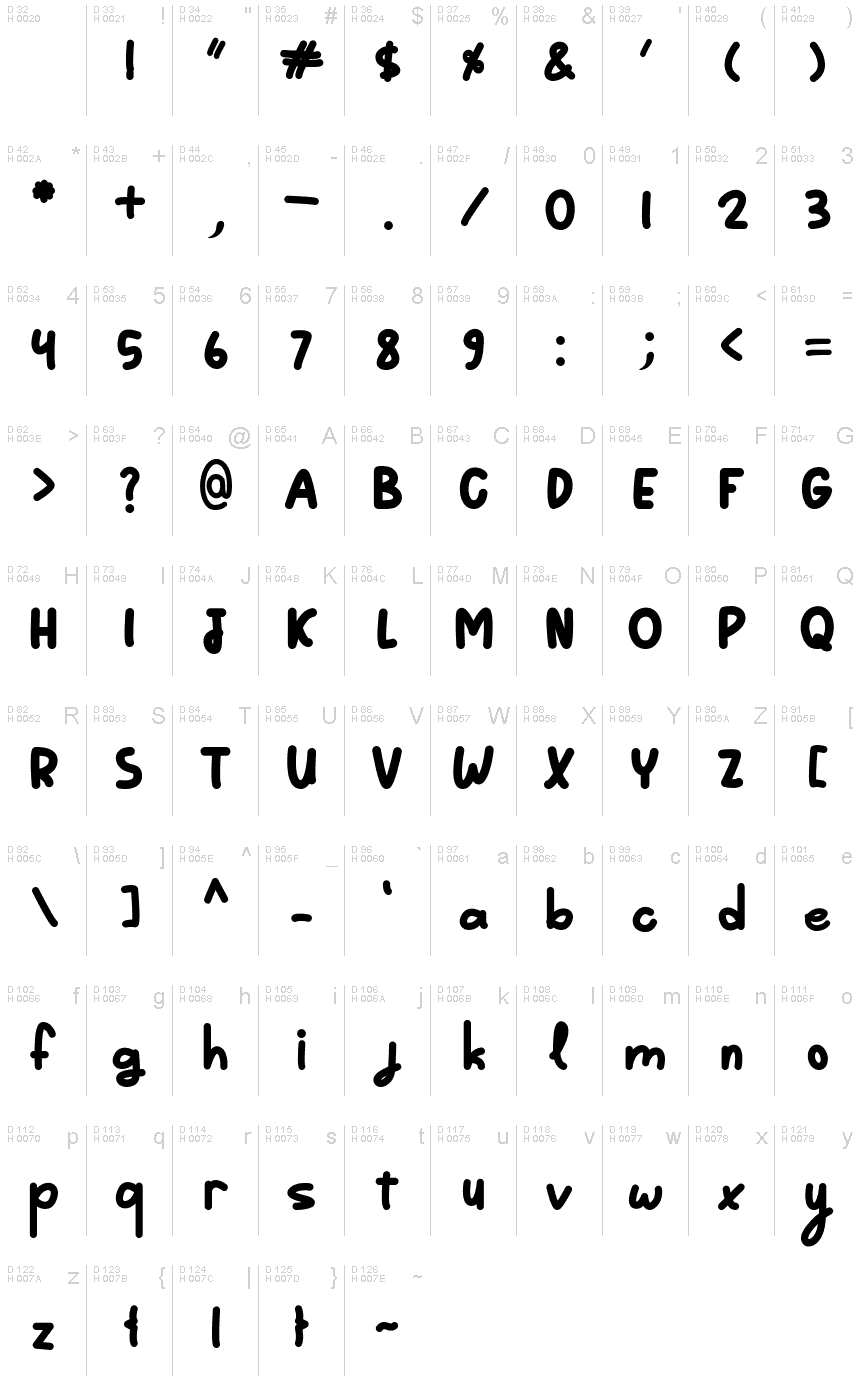
Trendy
Trendy, designed by Roni Studio, is a super fun and playful handwritten font. With its bold and expressive style, Trendy is an ideal choice for various projects.
Its versatility makes it perfect for creating eye-catching headings, attention-grabbing flyers, charming greeting cards, and captivating product packaging. It also works well for designing book covers that stand out on the shelves or adding personality to printed quotes.
Trendy can bring life to your logotype or add a touch of uniqueness to apparel designs. Let your creativity flow with Trendy's whimsical charm!